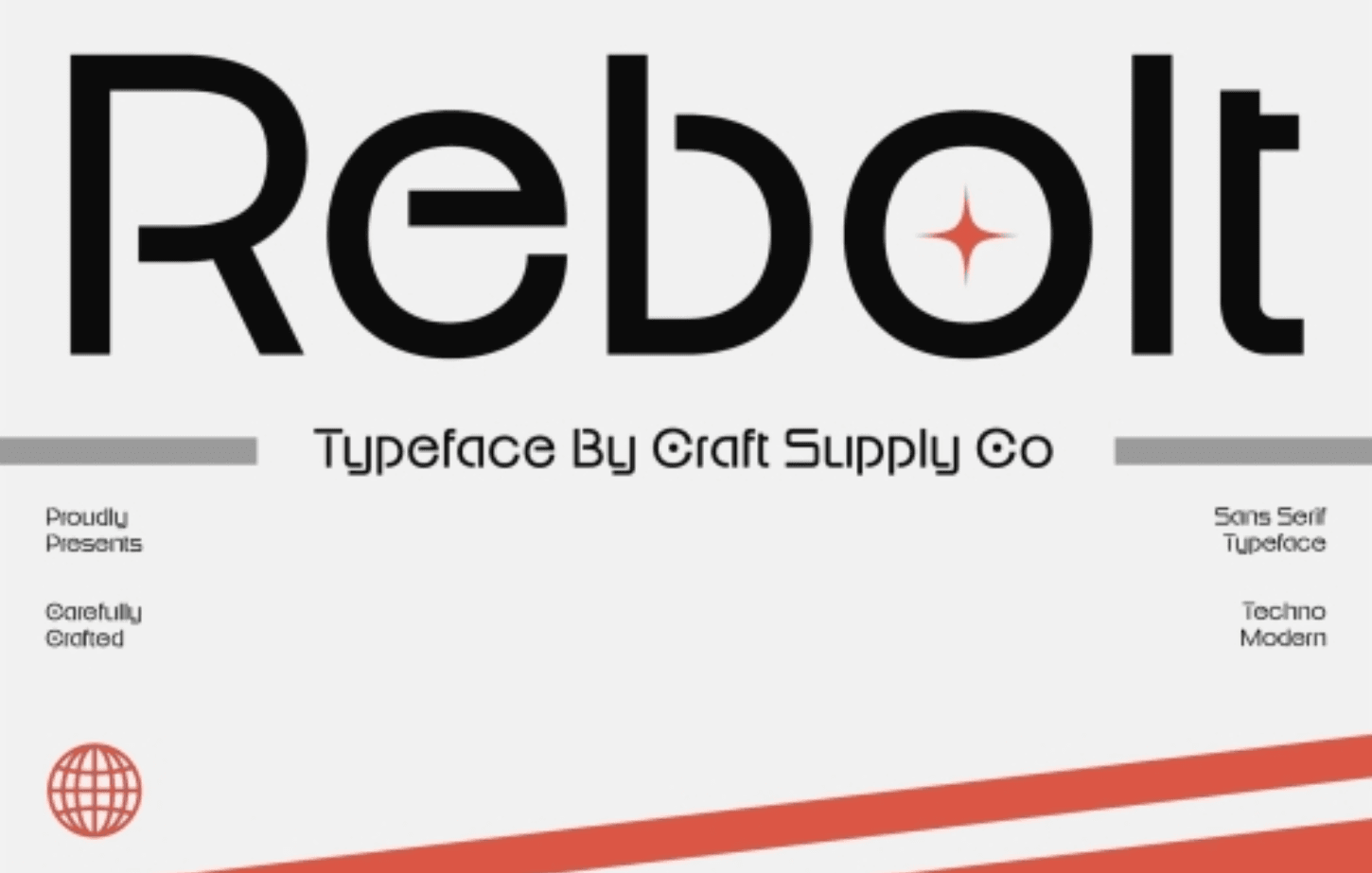
Rebolt – Futuristic Font
Rebolt Font is the perfect companion for projects craving a touch of modernity and boldness. Elevate your branding, advertising, or editorial ventures with Rebolt’s futuristic allure, setting a new standard in the world of design. Whether you are an expert or a beginner, this typeface is easily accessible and supports multilingual characters, promising a seamless creative journey. Step into the future of aesthetics with Rebolt Font, where innovation meets boldness in every character stroke.